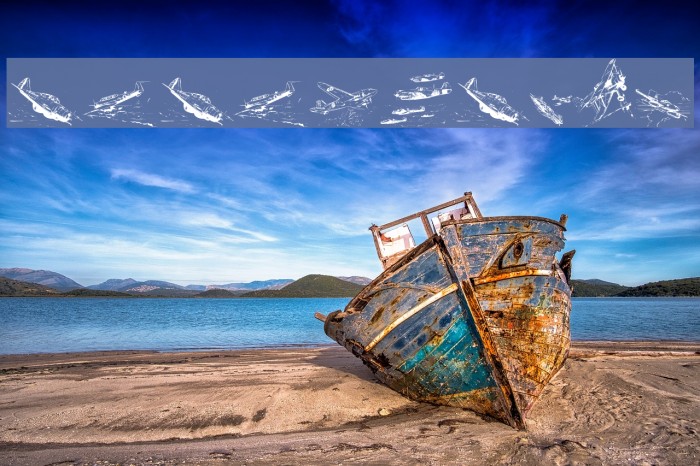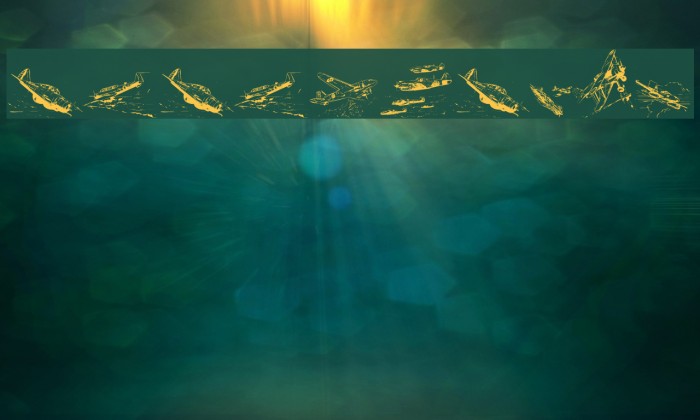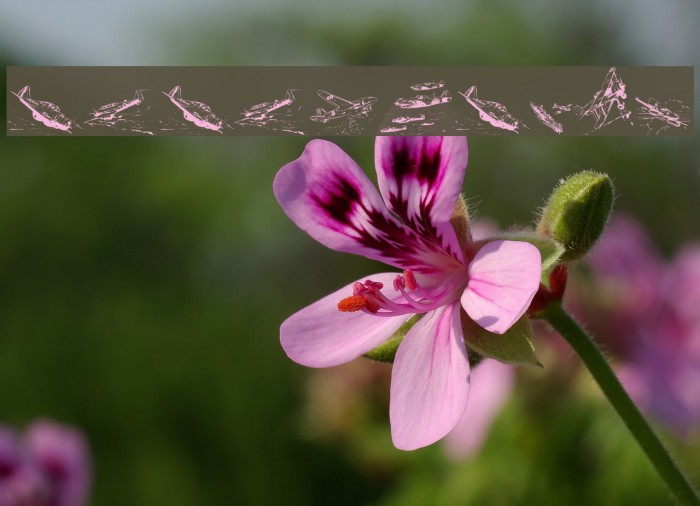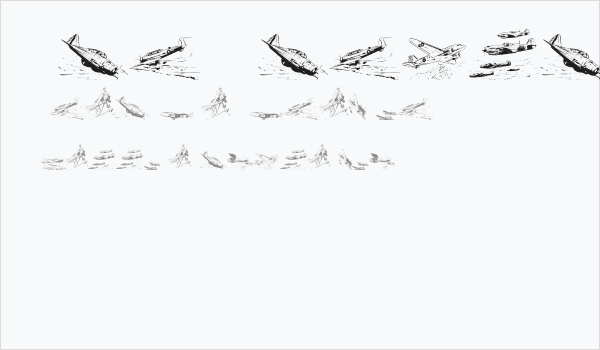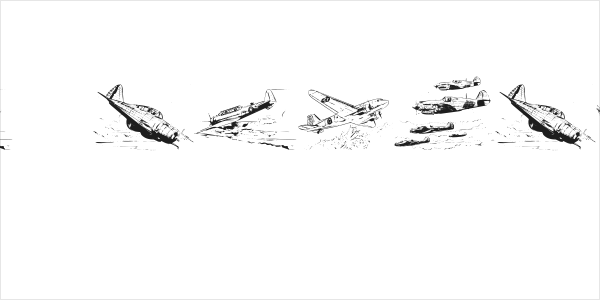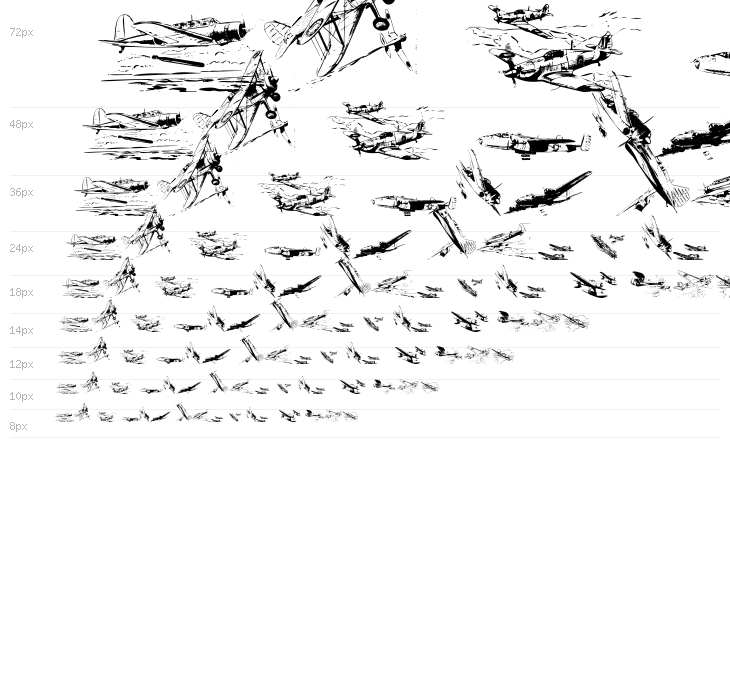
WarIIWarplanes Font
WarIIWarplanes Description
A decorative font composed of detailed, hand-drawn illustrations of World War II-era warplanes, with each character represented by a unique aircraft sketch. The style is intricate and illustrative, evoking a vintage, historical feel.
| Overall Style | Vintage, Decorative |
| Use Case | Logos, Headlines, Posters, Themed Graphics |
| Proposed Projects | Posters, themed event invitations, educational materials, historical displays, book covers, and creative projects related to aviation or history. |